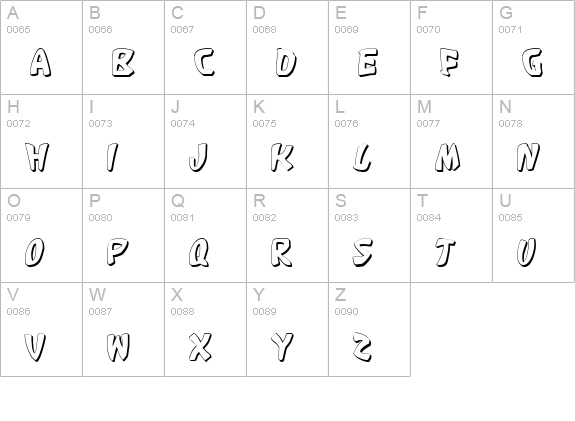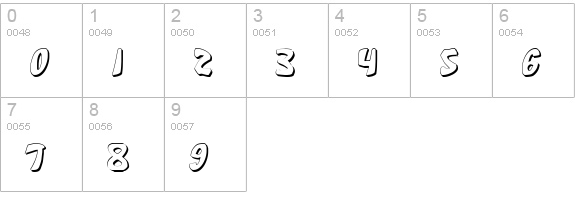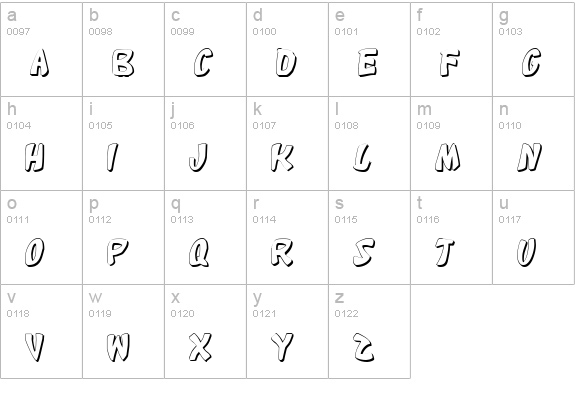
Katana Shadow Font Details
Katana Shadow font is a striking and stylish typeface that exudes an air of mystery and intrigue. With its unique blend of sharp edges and subtle shadows, this font captures the essence of a traditional Japanese katana blade, adding a touch of mysticism to any design project. The Katana Shadow font is perfect for creating eye-catching headlines, logos, and branding materials. Its bold and commanding presence demands attention, while its intricate details and subtle shading give it a sense of depth and sophistication. Not only does Katana Shadow font possess an exceptional aesthetic appeal, but it also offers the added benefit of being freely available to download at FontsMarket.com. This means that designers and creatives can access this incredible font without any cost or hassle. Whether you're a professional designer or an enthusiastic hobbyist, this font is easily accessible and ready to elevate your designs to new heights. The versatility of Katana Shadow font allows it to adapt to a wide range of design styles and themes. From sleek and modern to vintage and retro, this font effortlessly complements various visual aesthetics. Its clean lines and sharp angles make it ideal for creating bold and impactful designs, while its intricate details add depth and character. With its freely available download at FontsMarket.com, Katana Shadow font offers designers the opportunity to incorporate a touch of Japanese-inspired elegance into their projects, without breaking the bank. Whether you're working on a personal or commercial project, this font is a valuable addition to any designer's toolkit. In conclusion, Katana Shadow font is a visually captivating typeface that seamlessly blends tradition and innovation. With its striking design and freely available download at FontsMarket.com, this font is a must-have for designers seeking to add a touch of allure and sophistication to their creations. Download Katana Shadow font today and unleash its powerful aesthetic impact on your next design project.